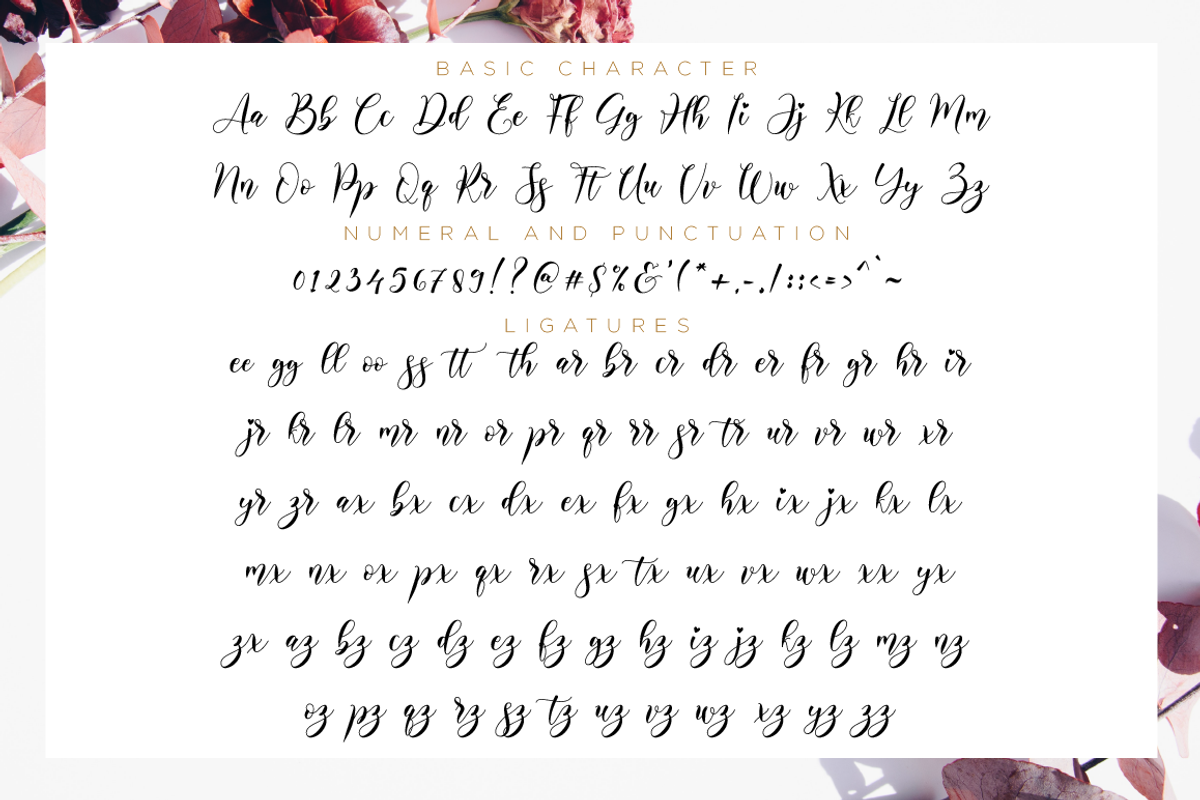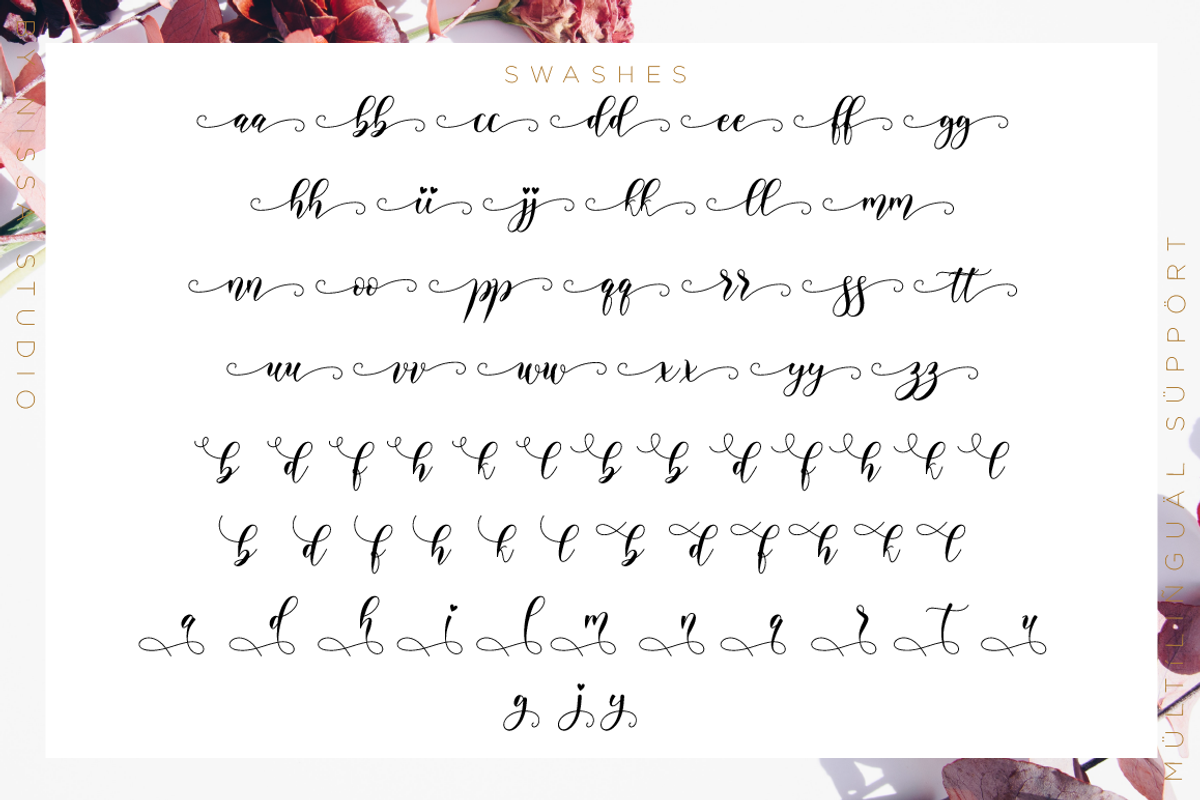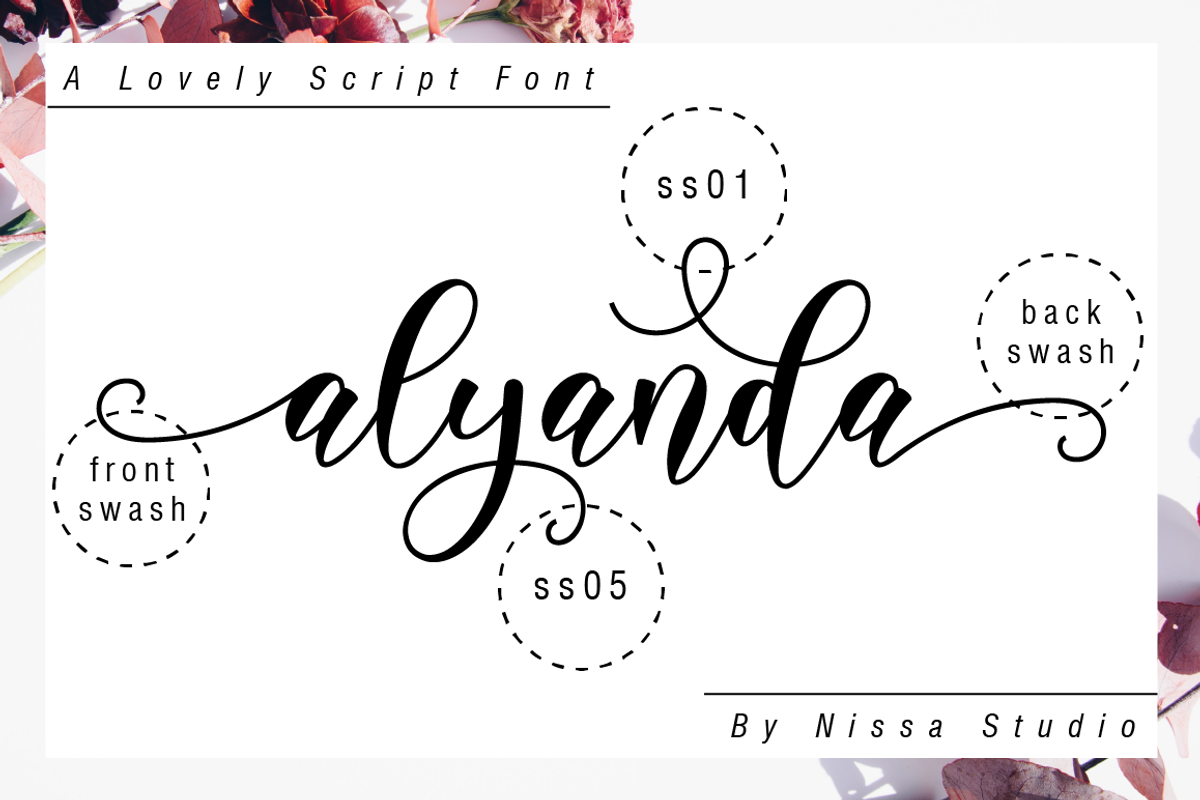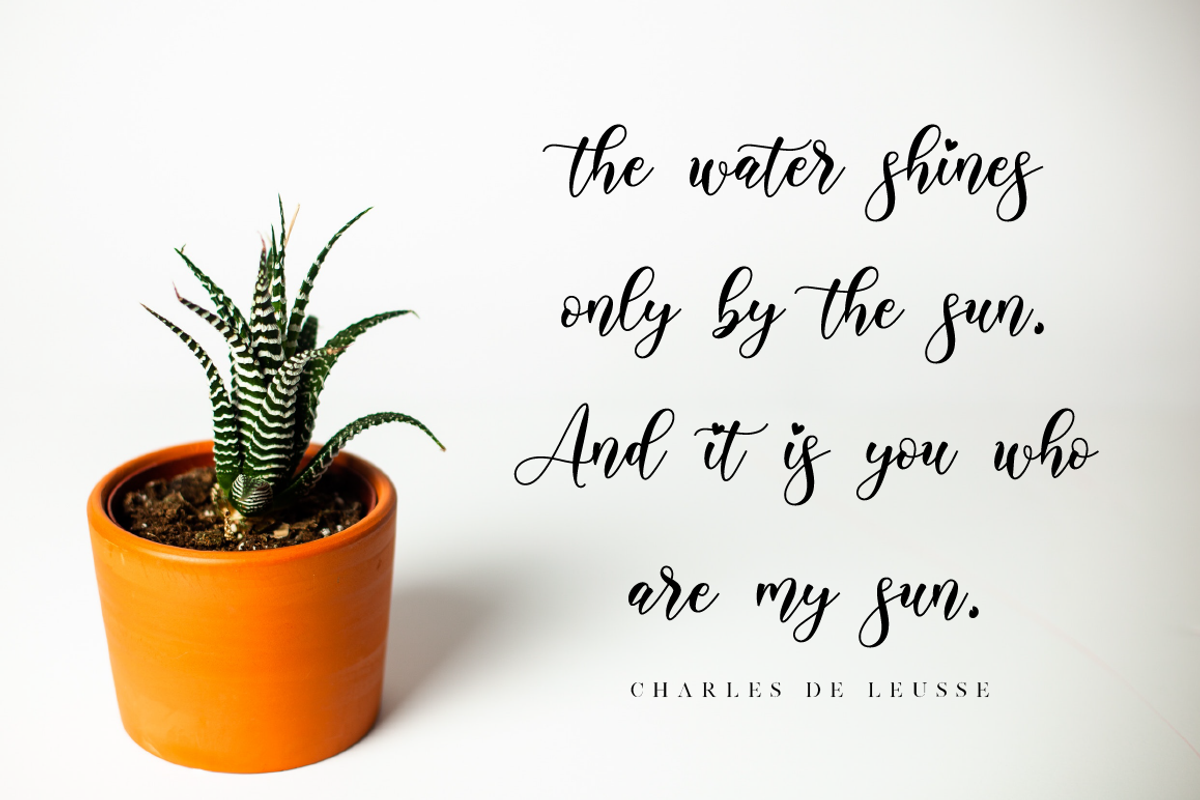
Alyanda Script
Alyanda is a beautiful script with a classy, elegant, and modern look. Fall in love with its authentic vibe, and turn any design project into a standout!
Each Font Has:
- Modern Handwritten Font
- Beautiful Swash (Ending tail)
- Beautiful Titling (Beginning tail)
- Special Ligatures